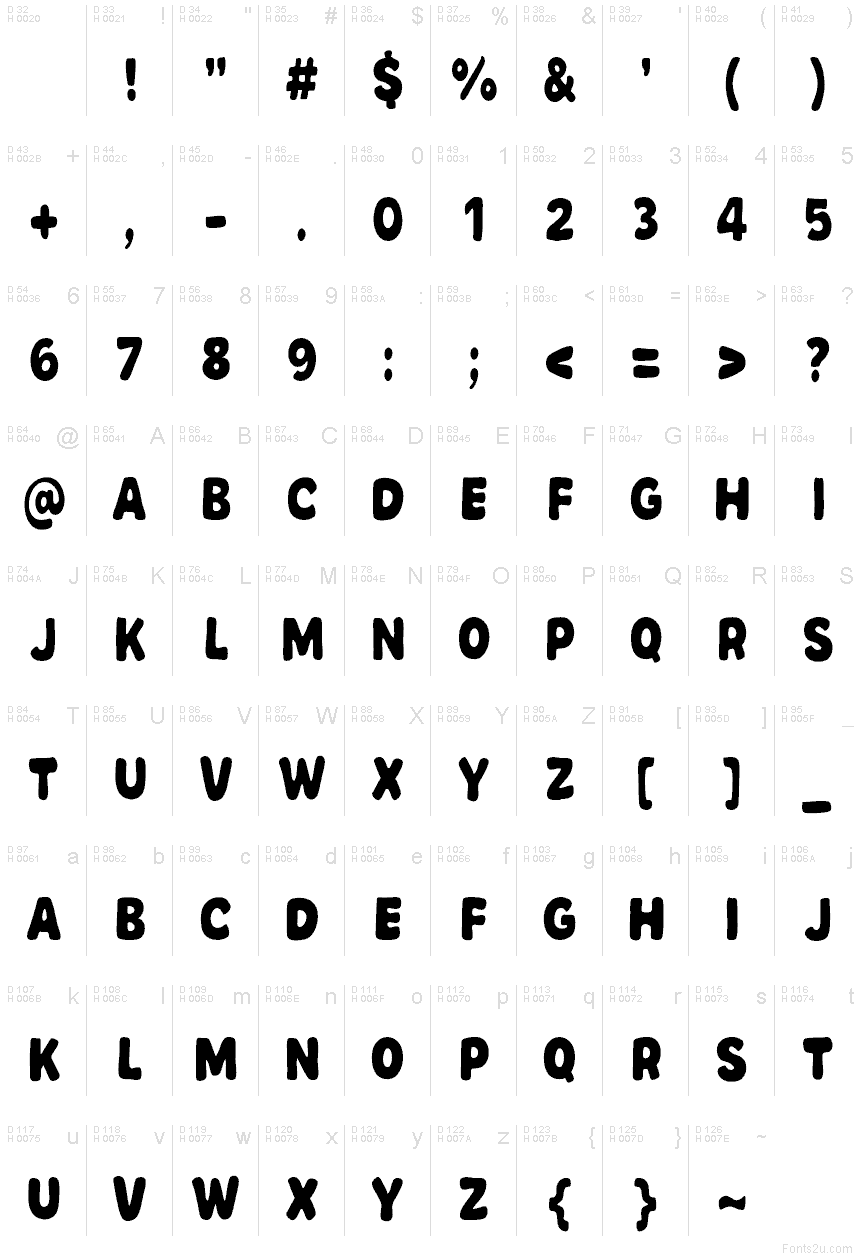
Selocity
Selocity font is a cartoon display font designed by Origin Type whose bold style gives it a strong presence. This free typeface is retro-inspired with unusual shapes that give it a quirky, casual vibe. The overall look of the font is uneven and slightly grotesque which gives off a unique visual identity for any creative project.
Selocity can be used to design advertising and promotional posters, product packaging, badges and labels, company logos, branding designs, apparel designs for t-shirts and sweatshirts typography comics or graphic novels in addition to other creative projects where this interesting font can thrive.